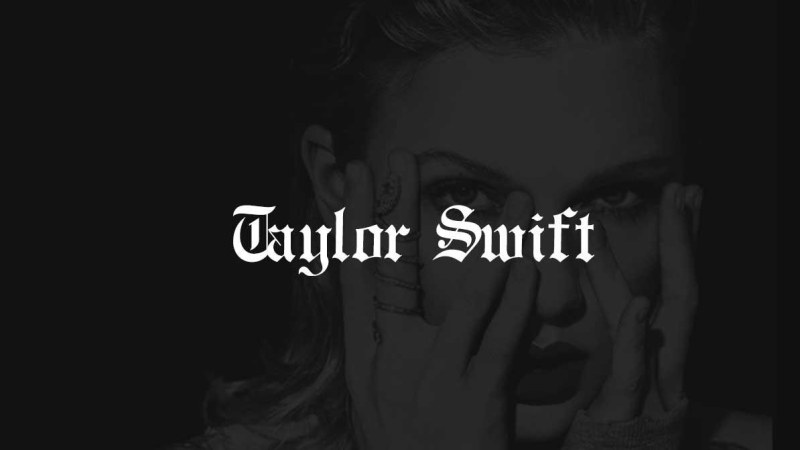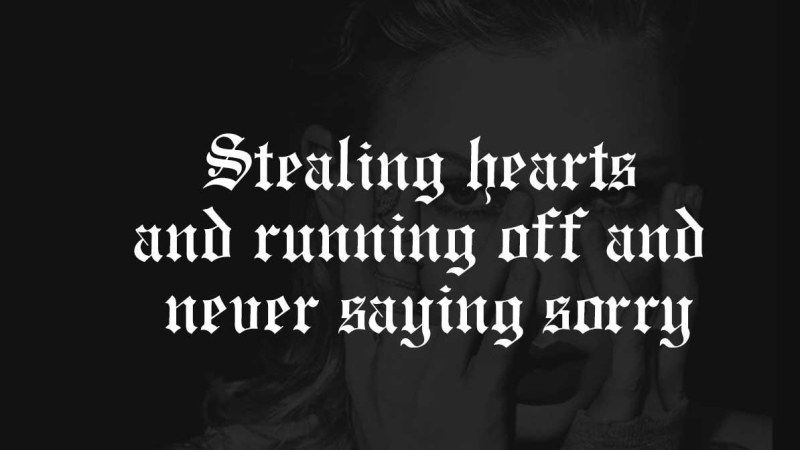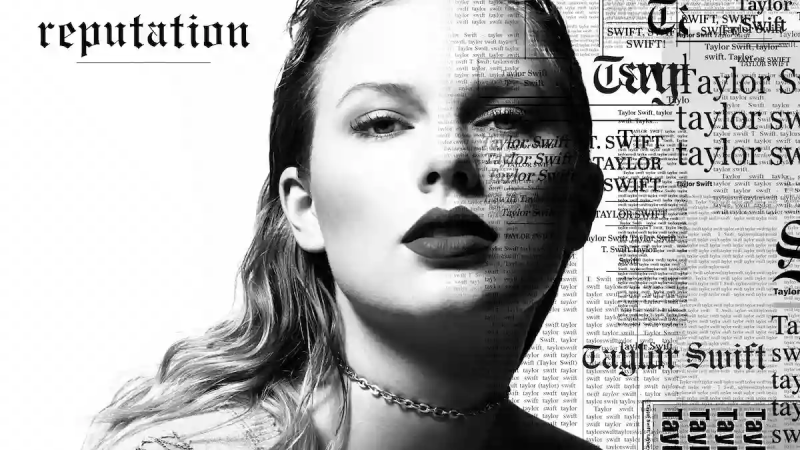
Reputation Font
During Taylor Swift’s Reputation era, she showcased a new and powerful musical and visual identity. The font used for this era played a significant role in conveying a bold and daring message. The unconventional lettering used for the word “Reputation” symbolizes the artist’s strength, a sense of mystery, and rebellion.
The “Reputation” campaign uses a font with sharp edges, sleek lines, and a minimalistic design. The font represents the storyline’s principles of transformation, persistence, and authorship. Its striking and modern design highlights Swift’s essence, shifting the focus of her public image and establishing her as an independent artist.
Throughout the ‘Reputation’ era, the fonts were used in the album covers, promotional materials, and merchandise. The album’s cover, which has a minimalistic and edgy look and a dark and thoughtful tone, presents Swift with a perfect canvas for her empathy for love, bestowal, and repentance.
Moreover, its visual expression, the font also symbolized Swift’s maturity as an artist and let her free from the constraints of convention. Furthermore, by choosing a more contrasting and demanding typography style, she made it clear that she is ready to rebel against the voices of others and to remake herself on her terms.
The font used is representative of the “Reputation Taylor Swift Font” era album’s audacious and unyielding personality. The free and easy pattern of the logo, reminiscent of Queen Swift’s boldness in owning her public image, represents not just a transition phase but also a confident and true beginning of a new era for her. Hence, it is a textual expression of the most transformational period in her life.
Reputation Font is built for size: event posters, hero headlines and billboard-style layouts.
High contrast display type like Reputation Font reads instantly in thumbnails and motion graphics.
Reputation Font is a Display Fonts typeface tagged Bold, Branding, Display, Display Fonts. It works well for headlines, logos, posters, social media graphics and branding projects that need a distinctive display fonts look.